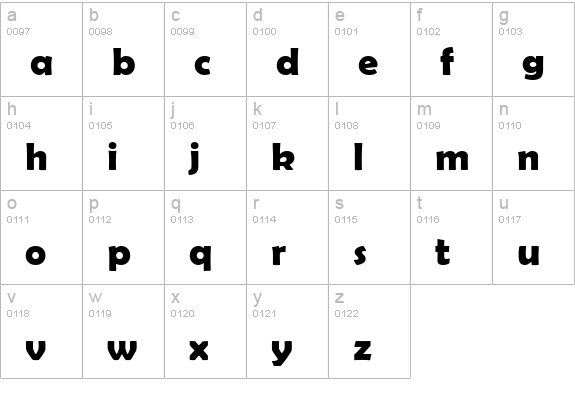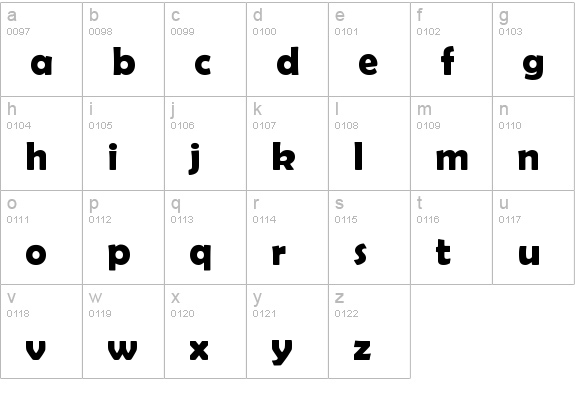
Berlin Sans FB Demi Bold Font Details
Berlin Sans FB Demi Bold is a sub-bold, structured variant in the Berlin typeface family \xE2\x80\x94 well suited to sub-headlines and emphasised passages.
Berlin Sans FB Demi Bold is a modern and stylish font that exudes confidence and sophistication. With its bold and prominent letterforms, this typeface commands attention and makes a statement. The sleek lines and sharp angles give it a contemporary edge, perfect for creating eye-catching designs that stand out. What sets Berlin Sans FB Demi Bold apart is not just its striking appearance, but also the fact that it is freely available to download at FontsMarket.com. This means that you can easily access this high-quality font without any cost, making it a valuable resource for designers, creatives, and anyone looking to elevate their projects with a touch of elegance and flair. Whether you're working on branding, advertising, posters, or any other creative project, Berlin Sans FB Demi Bold is a versatile font that will add a touch of sophistication and modernity to your designs. Download it for free today and see how it can take your work to the next level.